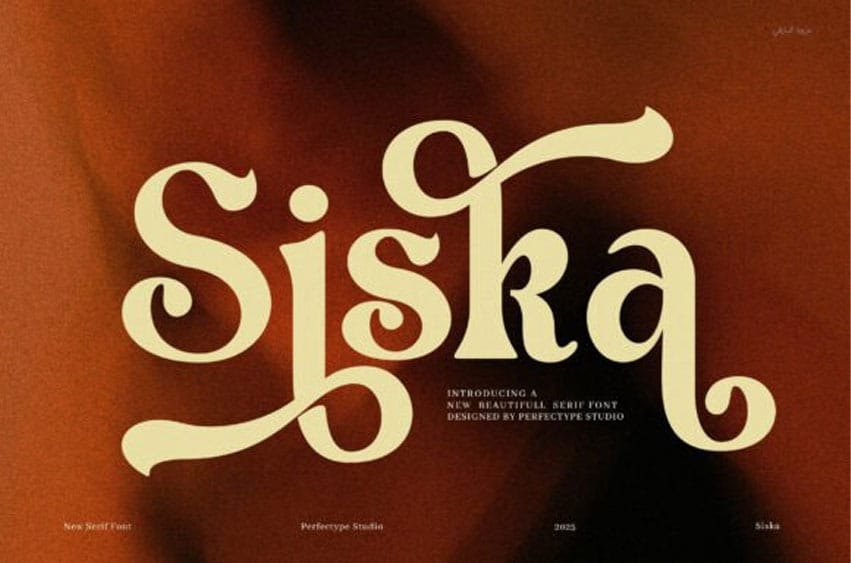
Siska Font is a refined and elegant serif font designed to bring a smooth, natural flow to your creative projects. Ideal for invitations, branding, logos, and social media graphics, Siska adds a stylish, feminine touch that elevates any design. With its graceful curves and clean, balanced strokes, it offers a warm yet professional presence while maintaining excellent readability.
This font includes a full set of ligatures and stylistic alternates, giving you the freedom to customize your typography with ease. Whether used for bold headlines or delicate body text, Siska offers versatility for both print and digital applications.
Blending classic elegance with a modern aesthetic, Siska is perfectly suited for wedding stationery, fashion branding, beauty products, and lifestyle content. Its PUA encoding ensures that all characters and alternates are easily accessible, even without design software, making it user-friendly and highly functional.